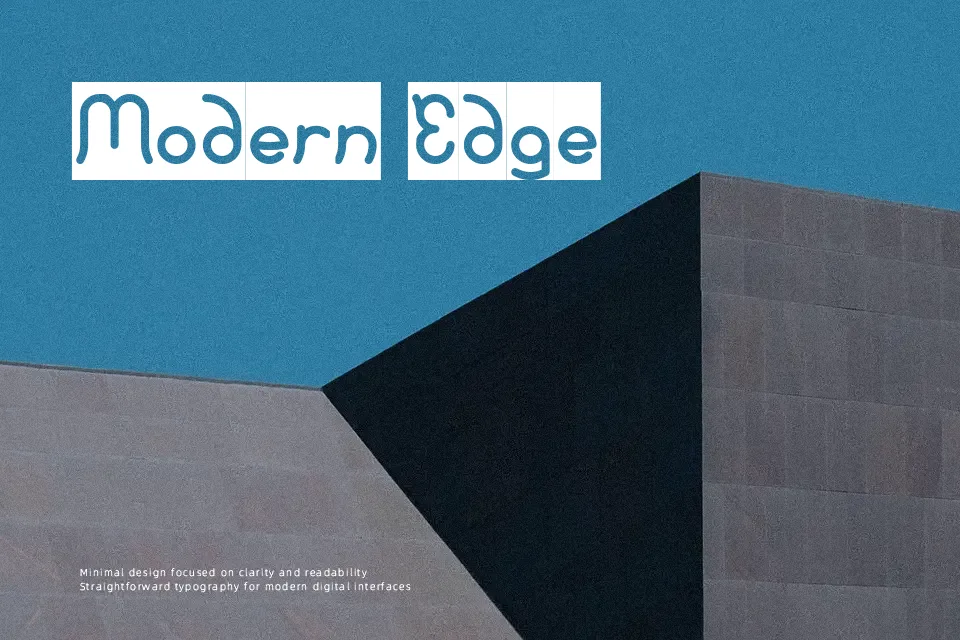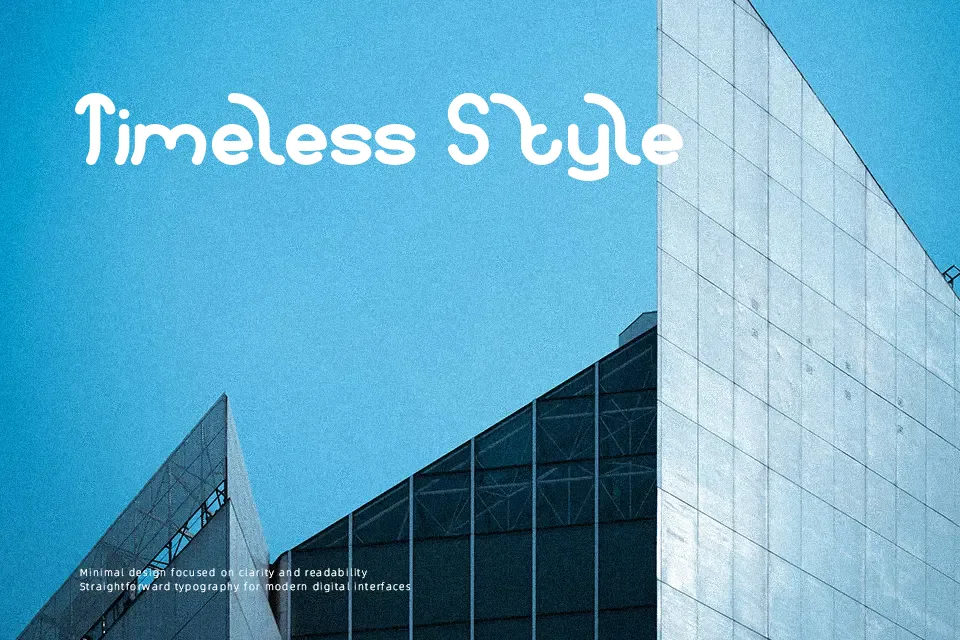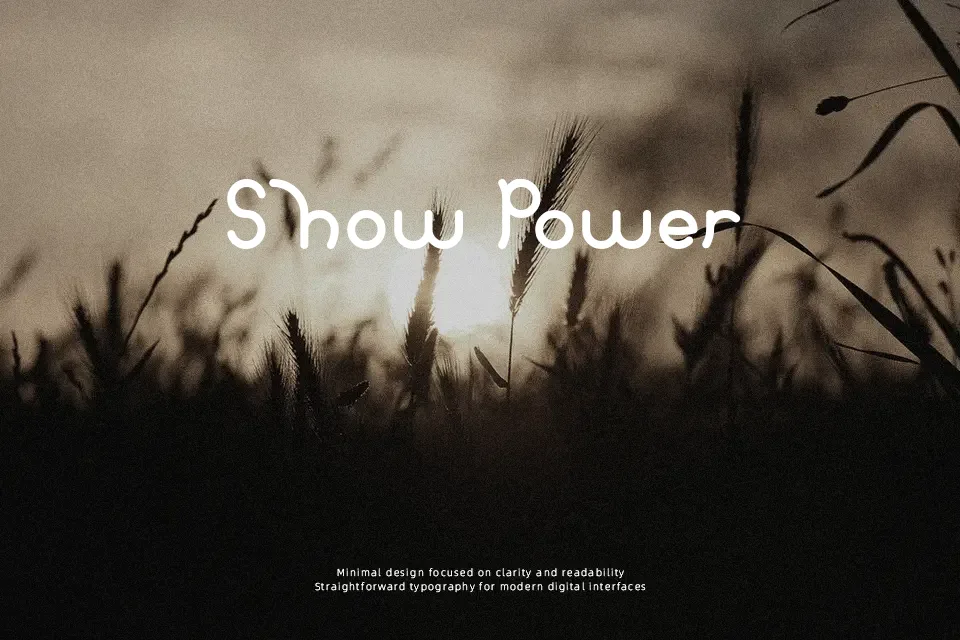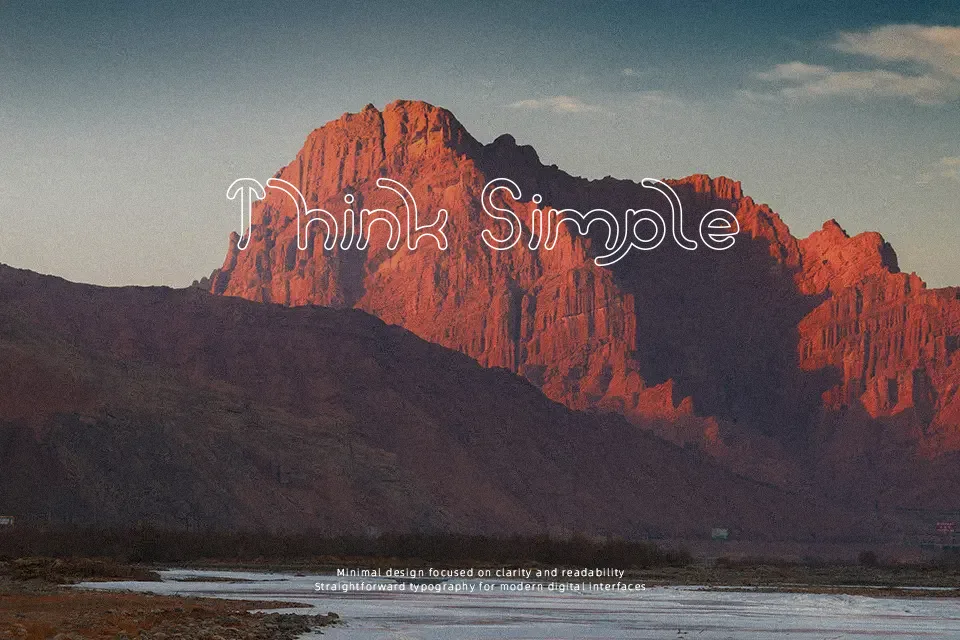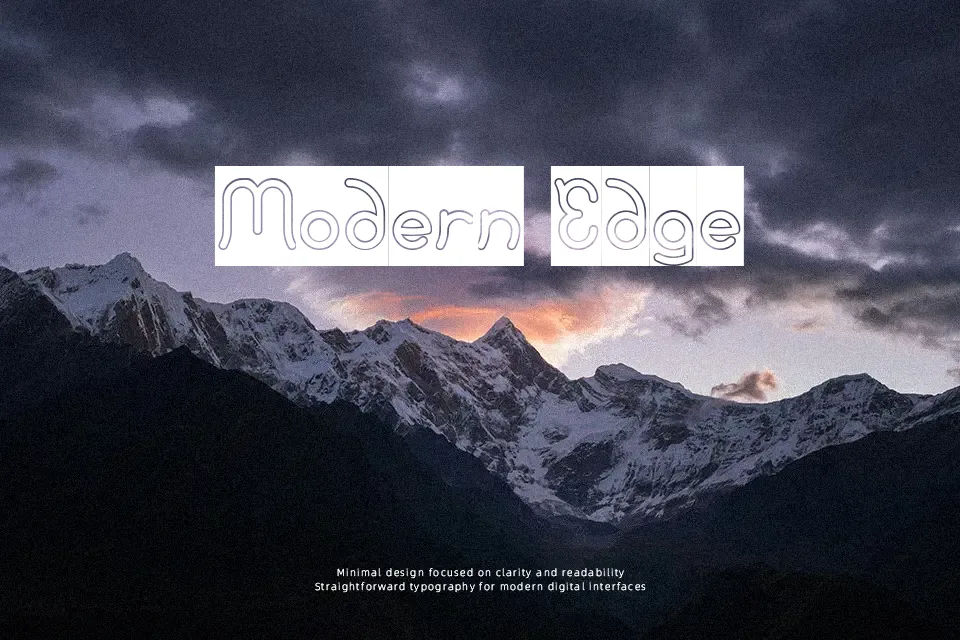
Polysoup Font
Polysoup Font presents a playful and decorative typographic approach, defined by noticeably rounded structures and geometric, bubble-like proportions. The generous curves and uniform strokes create a friendly aesthetic, while the hollow and inverted variations add significant creative versatility. Spacing is well-balanced for display purposes, ensuring the letterforms remain distinct in prominent headlines. The bold contours perform exceptionally well in striking applications like creative branding, playful packaging, and festival merchandise. However, this highly decorative nature inevitably introduces readability challenges in smaller contexts; the intricate details become less effective when applied to dense editorial layouts or extended paragraphs. Ultimately, the robust visual weight helps maintain strong clarity in larger, attention-grabbing typography.
creative branding
festival merchandise
playful packaging
children’s design
Perfect for branding, kids, and packaging, with a creative and decorative style.